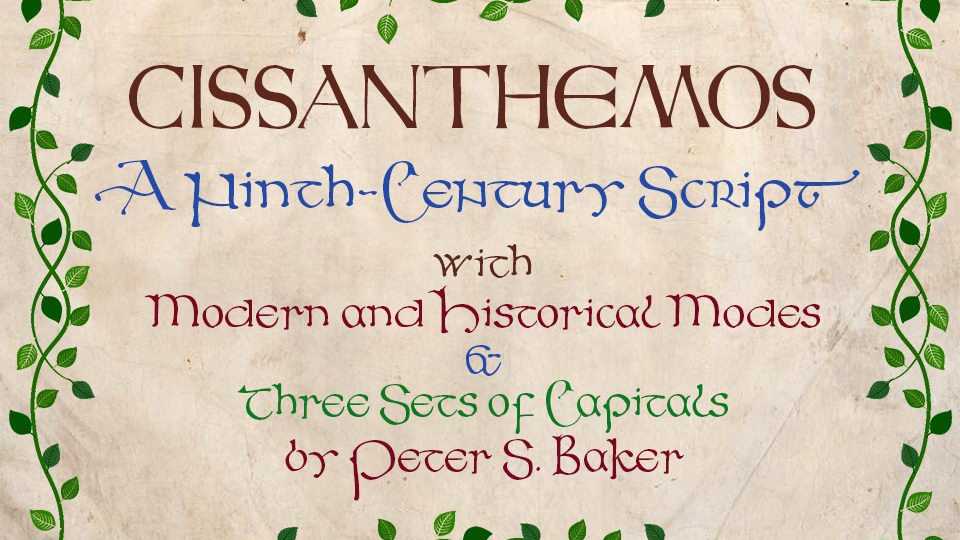
Download Cissanthemos font, a medieval script typeface based on the hand of the early ninth-century scribe of the Royal Bible, British Library MS Royal 1 E VI.